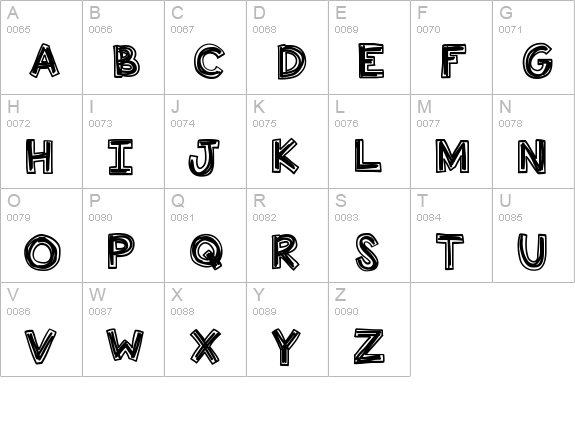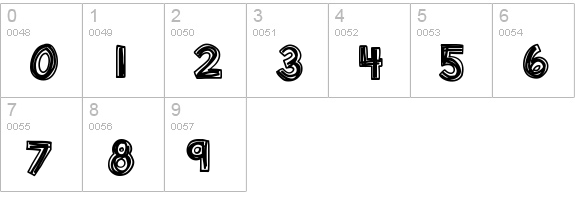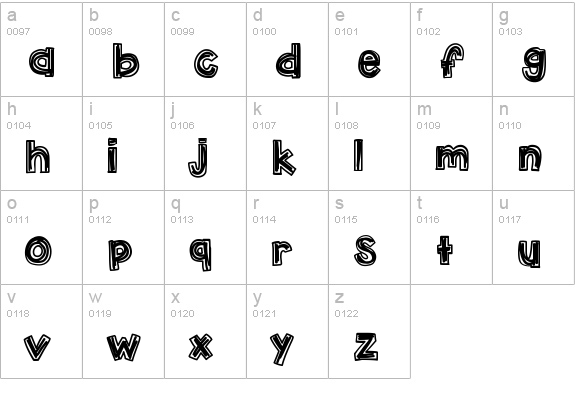
KBLuckyClover Font Details
Introducing KBLuckyClover, a stunning and whimsical font that will add a touch of charm to any design project. With its unique blend of elegance and playfulness, this font is perfect for creating eye-catching headlines, logos, and invitations. Its carefully crafted letterforms exude a sense of joy and creativity, making it a great choice for projects that want to stand out from the crowd. But what sets KBLuckyClover apart is not just its enchanting aesthetic—it is also completely free! Yes, you heard it right. This delightful font is freely available to download at FontsMarket.com, allowing designers and creatives from all walks of life to access its magic without any cost. Now, you can unleash your imagination and explore the endless possibilities that KBLuckyClover has to offer, without worrying about breaking the bank. Whether you're designing for a wedding, a children's book, a branding project, or simply want to add a touch of whimsy to your personal creations, KBLuckyClover will surely captivate the hearts of your audience. Its smooth curves and playful accents effortlessly bring words to life, creating a truly memorable visual experience. So, why wait? Embrace the magic of KBLuckyClover and let your designs bloom with creativity. Download this captivating font for free at FontsMarket.com and start adding a sprinkle of charm to your projects today.